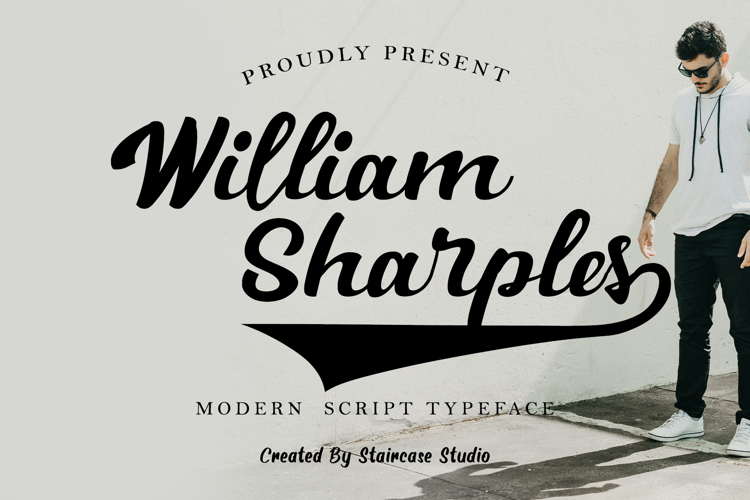
William Sharples Font
Swash Regular Style
William Sharples Modern Script Typeface, A collection of letters and numbers suitable your projects also great for Logotype, Branding Design, Logo Design, Digital Lettering Arts, T-Shirt/Apparel, Poster, Magazine, Signs, Advertising Design, and any design needs